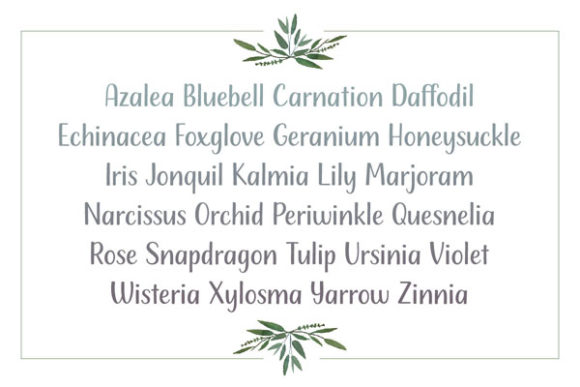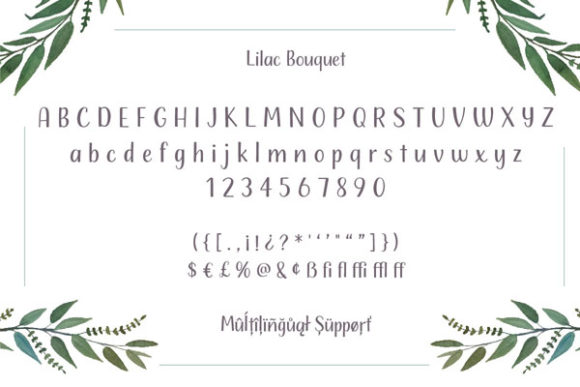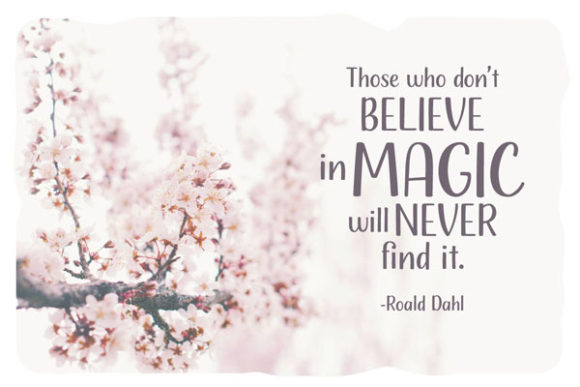
Lilac Bouquet Font
About Lilac Bouquet Font
“Lilac Bouquet” sounds like a stunning and versatile handwritten font that exudes delicacy, elegance, and uniqueness. Its well-balanced characters make it suitable for a wide range of design projects. Here are some creative ideas on how to use “Lilac Bouquet” to bring your designs to life:
1. Wedding Invitations: Design enchanting and romantic wedding invitations that capture the essence of love and celebration. The delicate and elegant style of “Lilac Bouquet” will add a touch of sophistication to the invitations.
2. Stationery Sets: Create personalized stationery sets, including letterheads, envelopes, and notecards, using “Lilac Bouquet” to make correspondence and communication truly special.
3. Art Prints: Design art prints featuring inspiring quotes or phrases in the font’s unique style, perfect for home decor or thoughtful gifting.
4. Logo Design: Use “Lilac Bouquet” to create charming and sophisticated logos for brands, businesses, or personal projects that want to convey a sense of elegance.
5. Greeting Cards: Craft heartfelt and beautiful greeting cards for various occasions, such as birthdays, anniversaries, or holidays, that stand out with the font’s distinctive flair.
6. Social Media Graphics: Elevate your social media presence by incorporating “Lilac Bouquet” into graphics and posts, adding an artistic touch to your online content.
7. Book Covers: Apply the font to book covers for novels, poetry collections, or journals, giving your literary work a touch of elegance and allure.
8. Beauty and Wellness Brands: Use “Lilac Bouquet” in branding materials for beauty and wellness brands to communicate a sense of luxury and sophistication.
9. Product Packaging: Apply the font to product packaging, such as labels, tags, or boxes, to add a touch of elegance and appeal to the overall presentation.
10. Magazine Titles and Headings: Use “Lilac Bouquet” for magazine titles, headings, or section dividers, creating an elegant and eye-catching layout.
11. Event Invitations: Design invitations for special events, such as galas, fundraisers, or exclusive gatherings, using “Lilac Bouquet” to set the tone for an elegant affair.
12. Bridal Shower Decorations: Incorporate “Lilac Bouquet” into bridal shower decorations, from welcome signs to seating charts, to add a sophisticated touch to the celebration.
13. Calligraphy Art: Create custom calligraphy art pieces using “Lilac Bouquet” for clients or personal projects, showcasing the font’s delicate and elegant strokes.
14. Menu Design: Apply the font to design menus for fine dining establishments, adding a touch of sophistication to the dining experience.
15. Fashion and Lifestyle Blogs: Use “Lilac Bouquet” in fashion or lifestyle blog headers and graphics, conveying an air of sophistication and creativity.
16. Inspirational Posters: Design motivational posters featuring uplifting messages and “Lilac Bouquet” calligraphy to inspire and uplift your audience.
17. Boutique Signage: Create elegant signage and displays for boutique shops, capturing attention with the font’s unique and sophisticated appeal.
18. Product Catalogs: Use “Lilac Bouquet” in product catalogs to showcase items with a touch of artistic elegance and refinement.
19. Scrapbooking: Incorporate “Lilac Bouquet” into scrapbooking projects to add a personal and artistic flair to memory-keeping.
20. Calendars and Planners: Design calendars or planners using “Lilac Bouquet,” making each month or week a visually delightful experience.
In conclusion, “Lilac Bouquet” is a delicate and elegant handwritten font with a unique and artistic touch. Whether used in wedding invitations, logo design, social media graphics, or art prints, this font has the ability to add a sense of sophistication and charm to your creative ideas, making them come alive in a truly enchanting way.